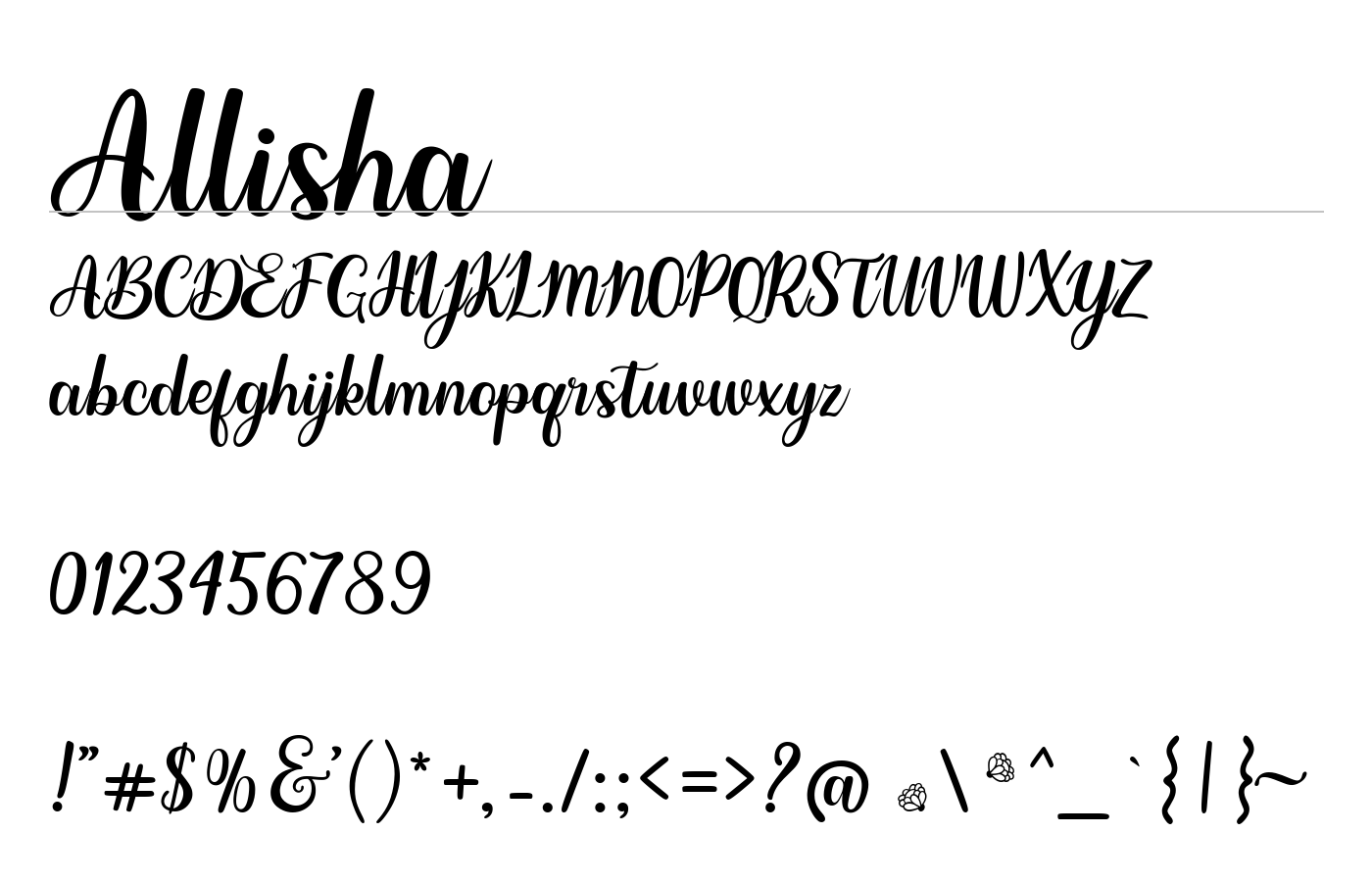
Allisha is an elegant script font with a smooth, flowing style that combines modern charm with classic calligraphic strokes. Its medium weight and moderate contrast give it a balanced, friendly feel, making it perfect for invitations, branding, and creative projects that need a touch of sophistication and warmth. This font works especially well for logos and headlines where a stylish, personal look is desired.
Allisha Font
About Allisha Font
| Font family | Allisha Font |
| Designer | deedeetype |